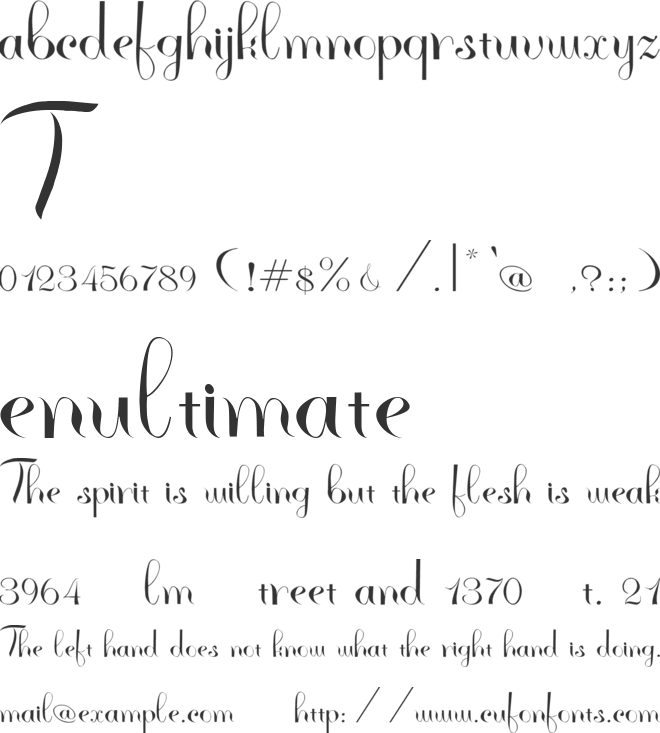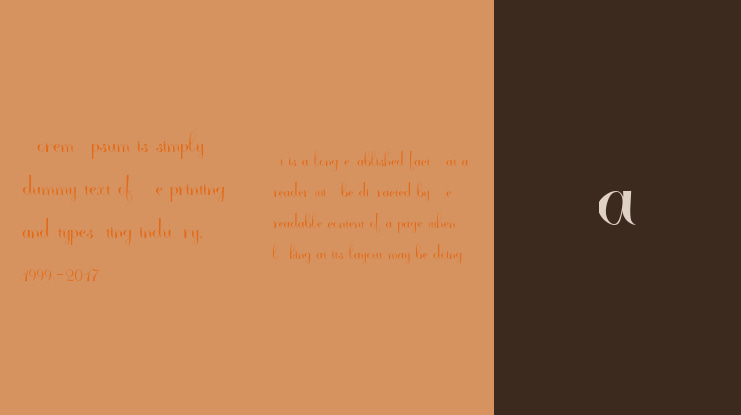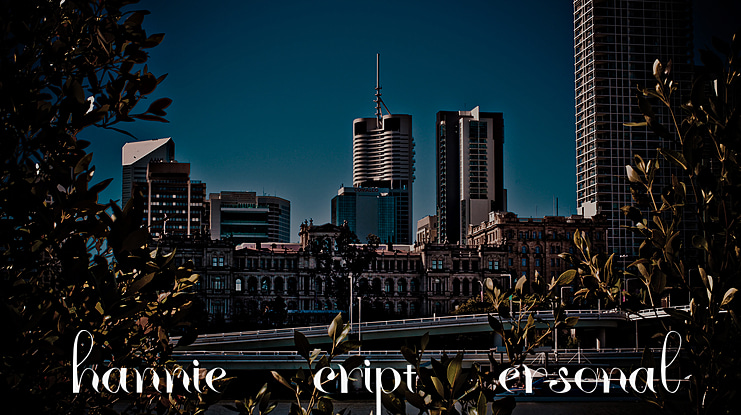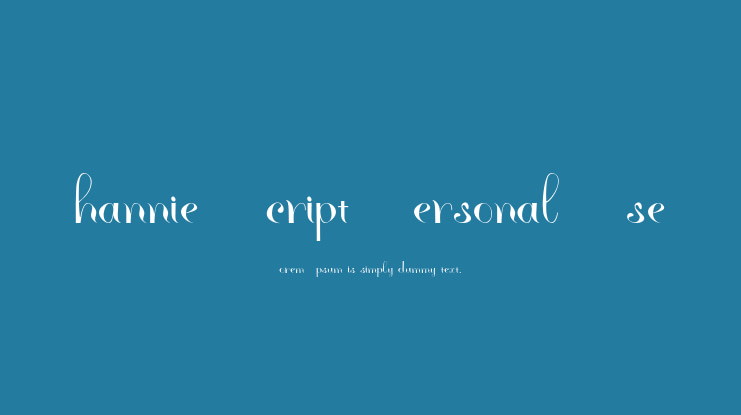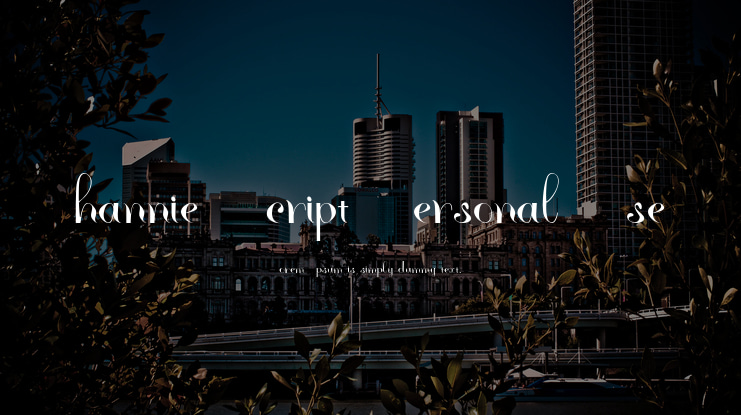
Rhannie Script Personal Use Font
Rhannie Script font means the beauty of woman. This font inspired by beauty of woman with all their softness make this font looks sophisticated classy, elegant with the softly curve could your project will looks a fabulous and amazing.
Rhannie Script font would perfect for photography, watermark, social media posts, advertisements, logos & branding, invitation, product designs, label, stationery, wedding designs, product packaging, special events or anything that need handwriting taste.
Features:
Latin base A-Z and a-z
Numbers
Symbol
Style Set
Alternative Styles
Ligature
Swash / Swirls
Multilingual